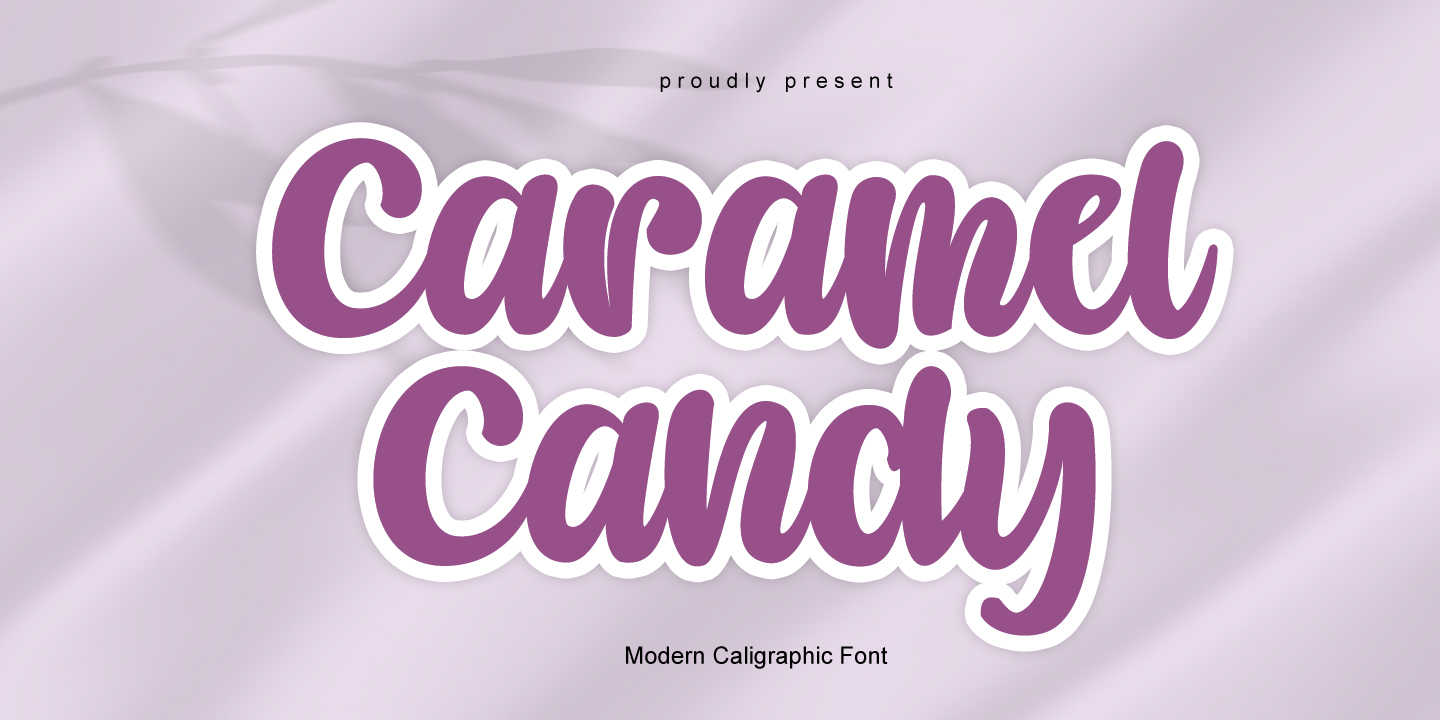
Caramel Candy Font is perfect for candy shop branding, sweet bakery promotions, dessert packaging designs, children's birthday parties, confectionery marketing, ice cream parlor signage, sugar-themed celebrations, and delightful treat communications.
This delicious script typeface is exciting because it captures the rich sweetness and irresistible appeal of golden caramel through flowing letterforms that evoke the smooth texture and mouth-watering satisfaction of premium confectionery delights.
The Caramel Candy Font family includes regular and bold weights with sweet alternates, candy-inspired decorative elements, and sugary flourishes that enhance the delightful, tempting atmosphere of any confectionery design project.
Sweet and irresistible, Caramel Candy Font Free Download brings the rich indulgence and pure joy of caramel confections to contemporary typography through authentic sweet character. This delectable font embodies the comfort and happiness that comes from enjoying life's sweetest pleasures, making it perfect for confectioners and dessert makers who understand that great sweets create lasting memories and emotional connections. Its flowing character reflects the smooth richness and careful craftsmanship required to create perfect caramel and the joy that comes from sharing sweet moments with loved ones, resonating with customers who appreciate authentic sweetness and the simple pleasures that make life special. Perfect for candy stores and artisanal confectioners, this font ensures your message carries the sweet authenticity and irresistible appeal that sugar lovers crave. Whether used for candy packaging or dessert menus, Caramel Candy Font Free Download delivers the confectionery charm and sweet satisfaction that connects with people who understand that the best moments in life are often the sweetest ones, shared with family and friends over delicious treats that bring smiles and create cherished memories.